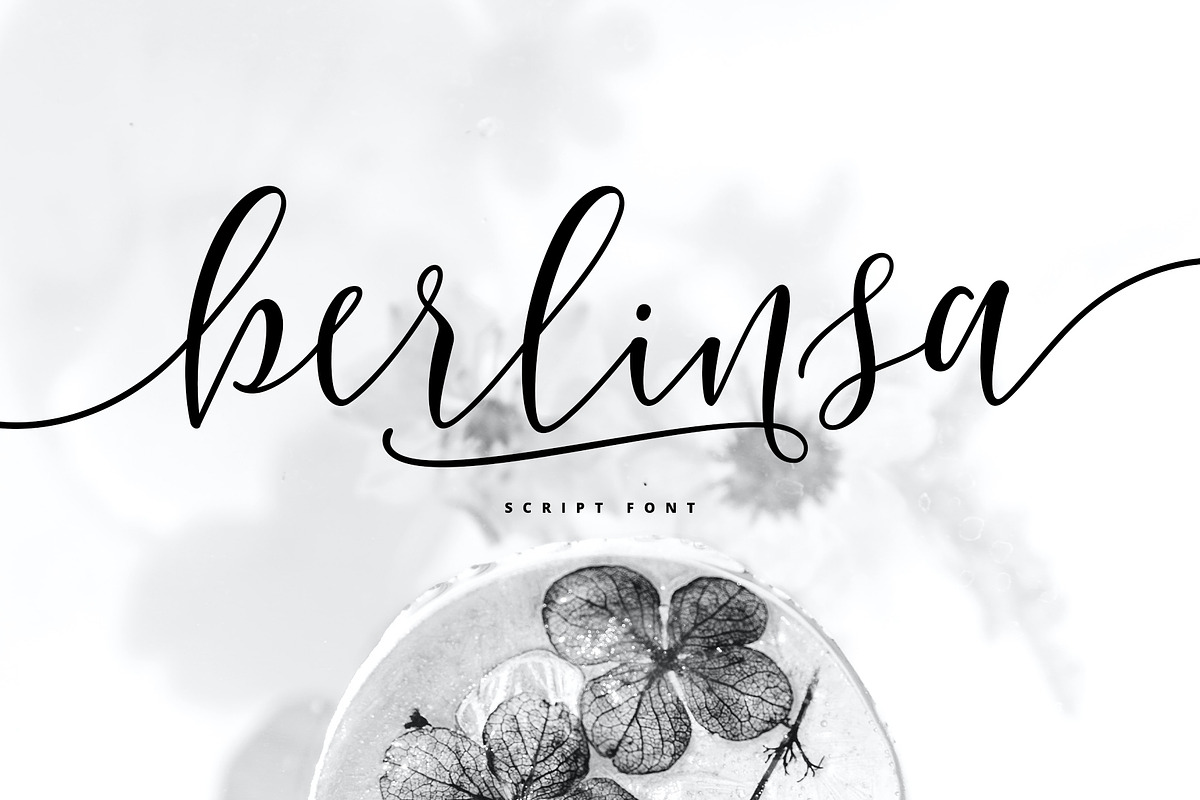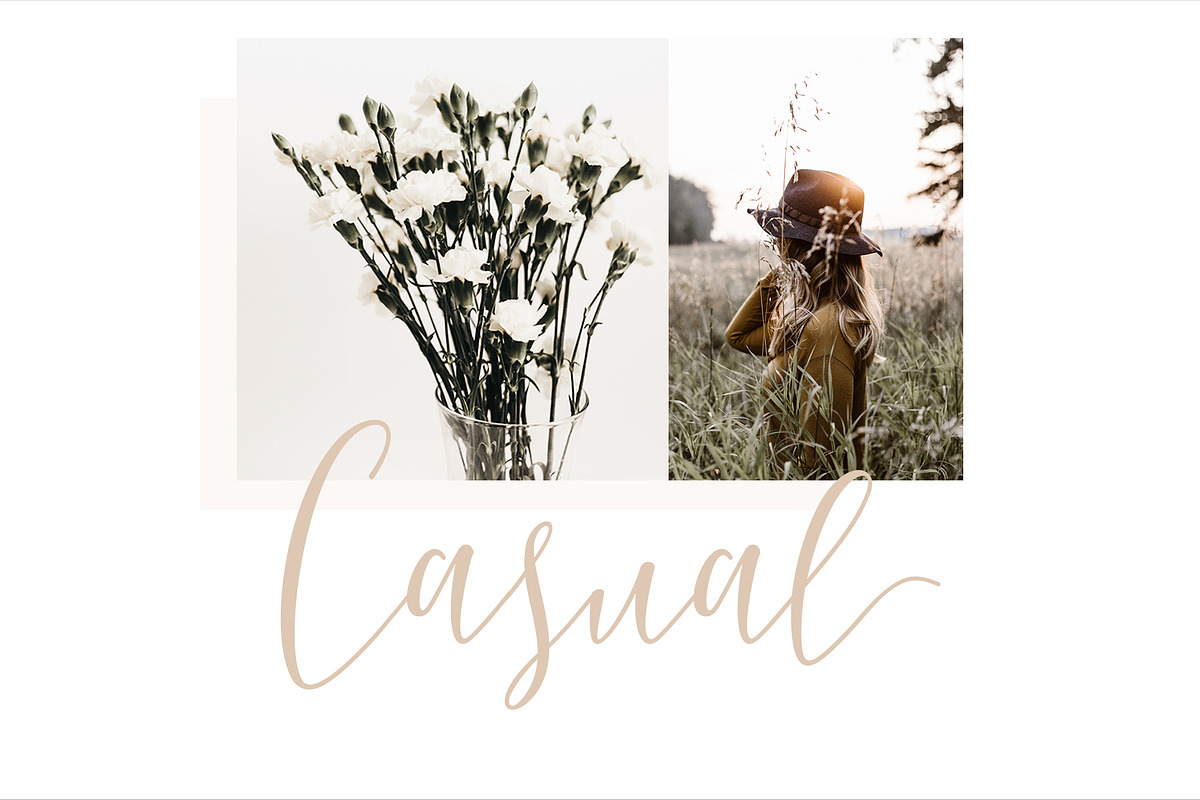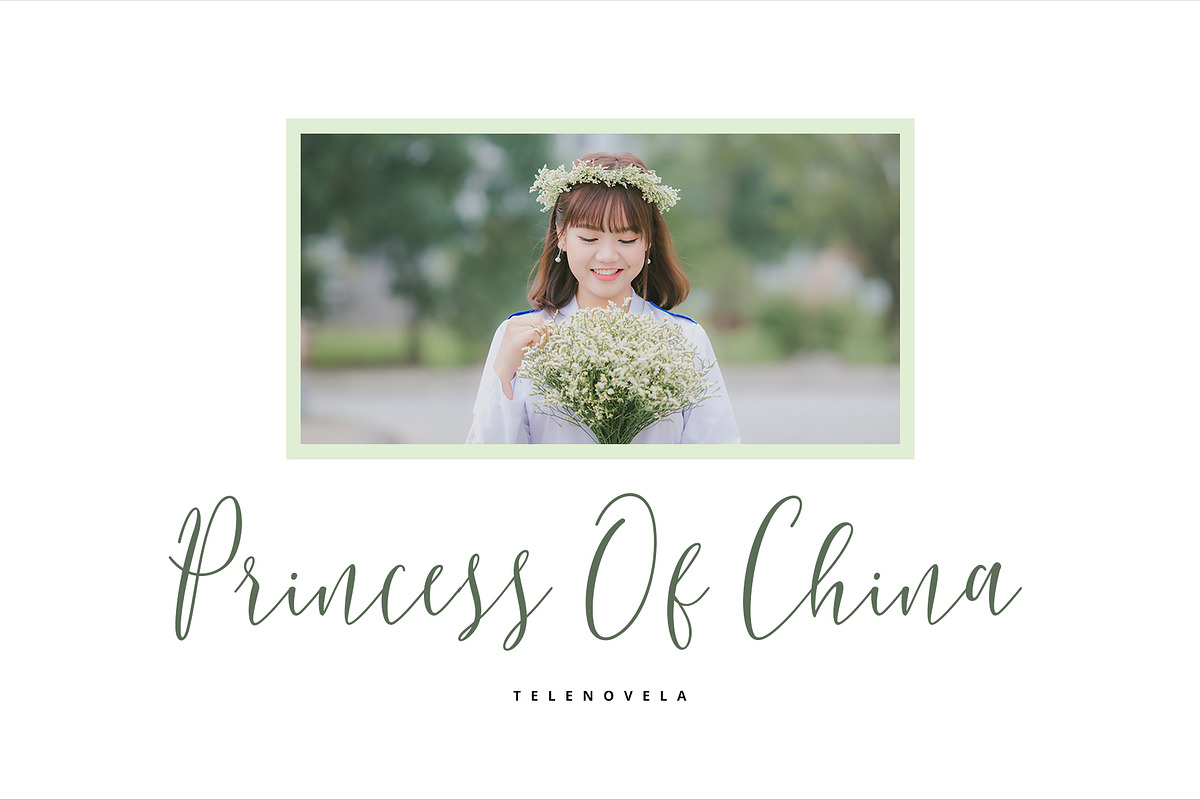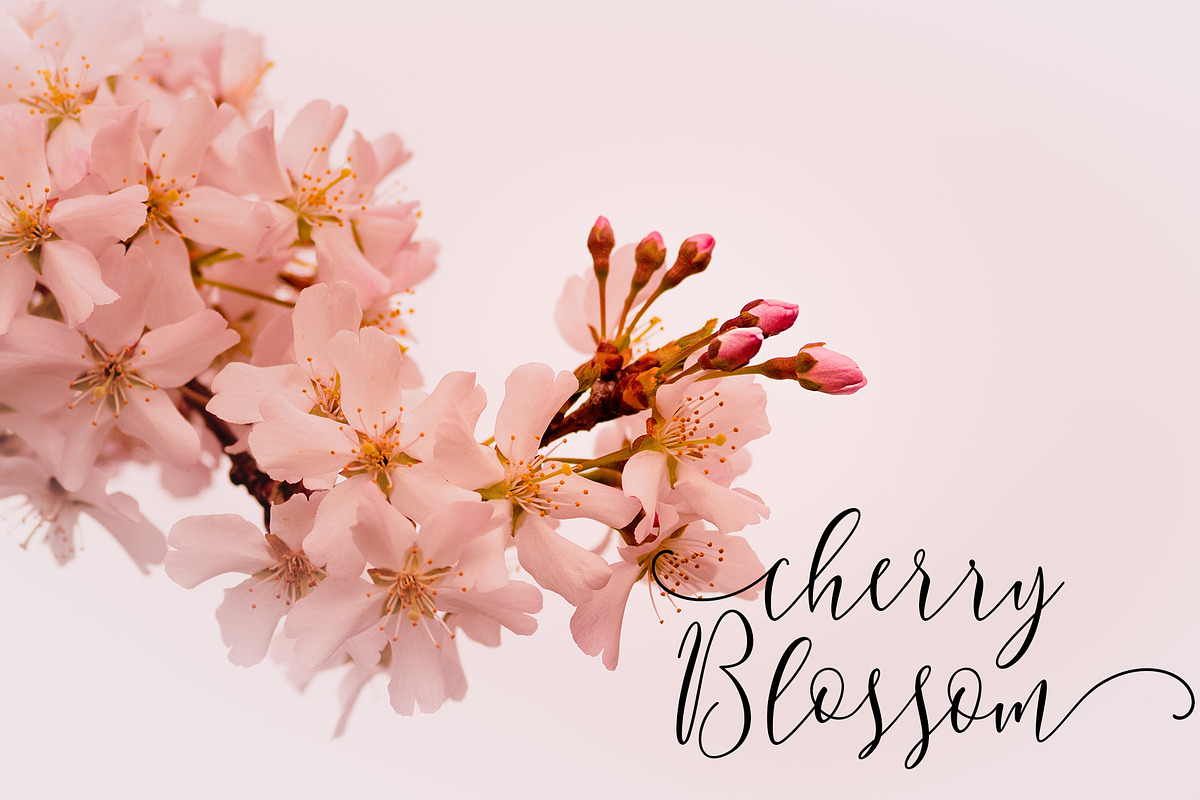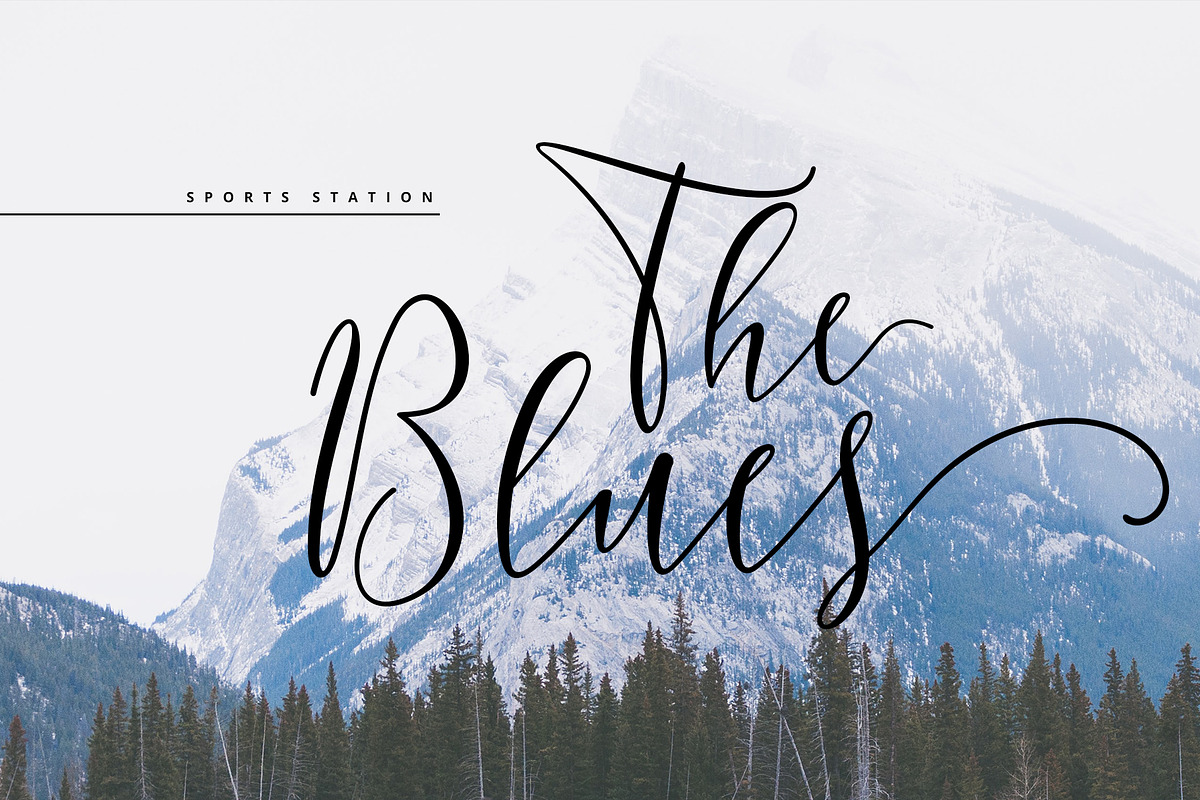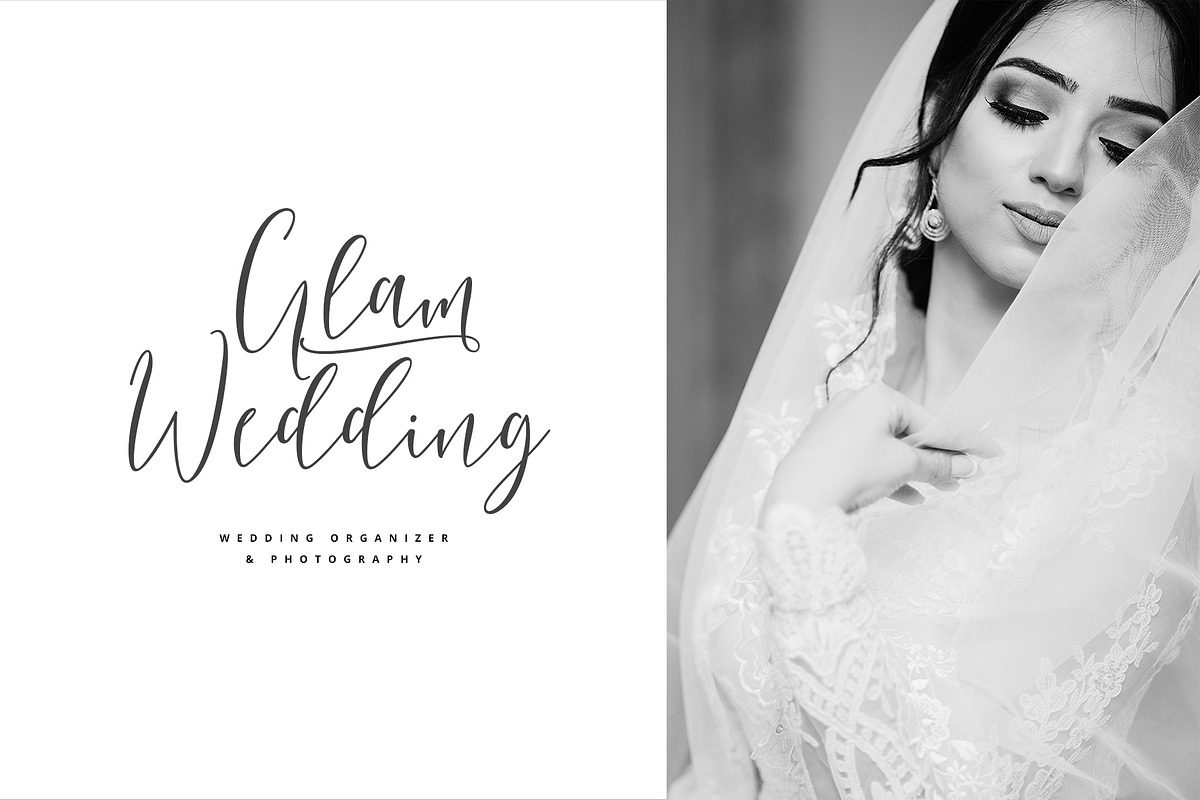
Berlinsa Script Font - Update!
Coming again to complete your script font collection..! This is a modern script font with handwriting style. This time made smoother so it gives the character of handwriting very simple, real and sweet.
Berlinsa is perfect for logo's, branding projects, homeware designs, product packaging, mugs, quotes, posters, shopping bags, logo's, t-shirts, book covers, name card, invitation cards, greeting cards, and all your other lovely projects.
You can use this font for your job very easily. Because there are many features in it. Contains the complete set of lower and uppercase letters, punctuation, numbers, web fonts, and multilingual support. This font also includes several ligatures and alternative style Stylistic Set For those of you who have software that is capable of working OpenType (Corel Draw / Photoshop / Illustrator / InDesign).
- Contains the complete set of lower and uppercase letters, punctuation, numbers, web fonts, and multilingual support.
- This font also includes several ligatures and alternative style Stylistic Set For those of you who have software that is capable of working